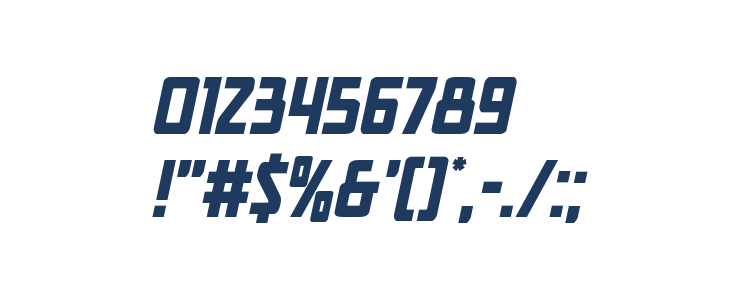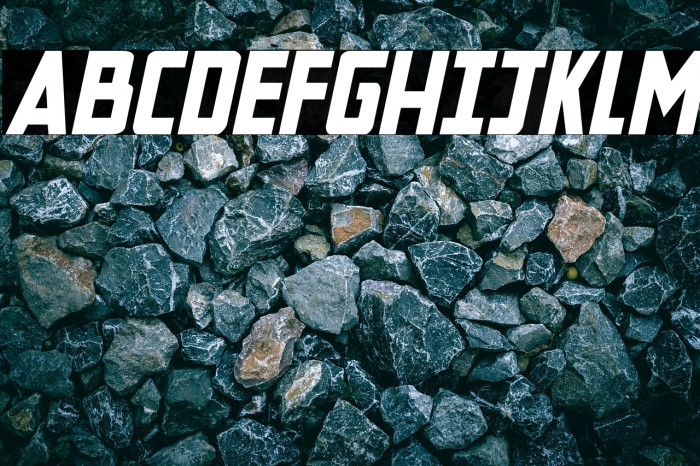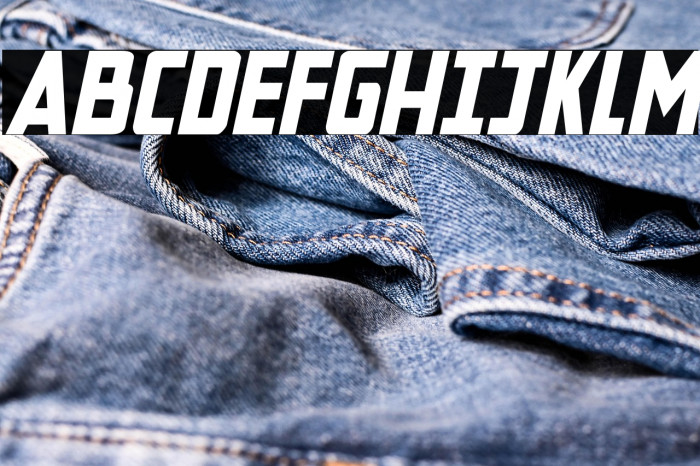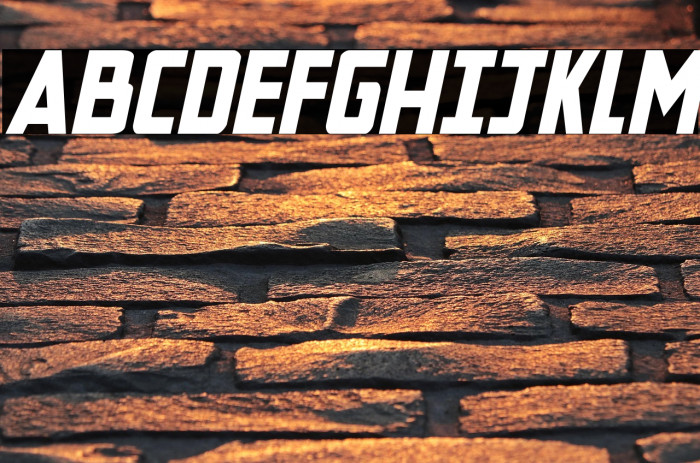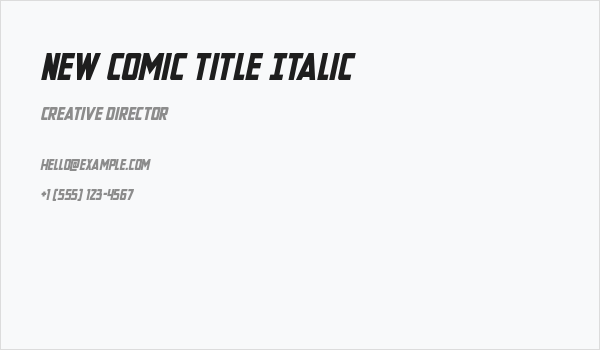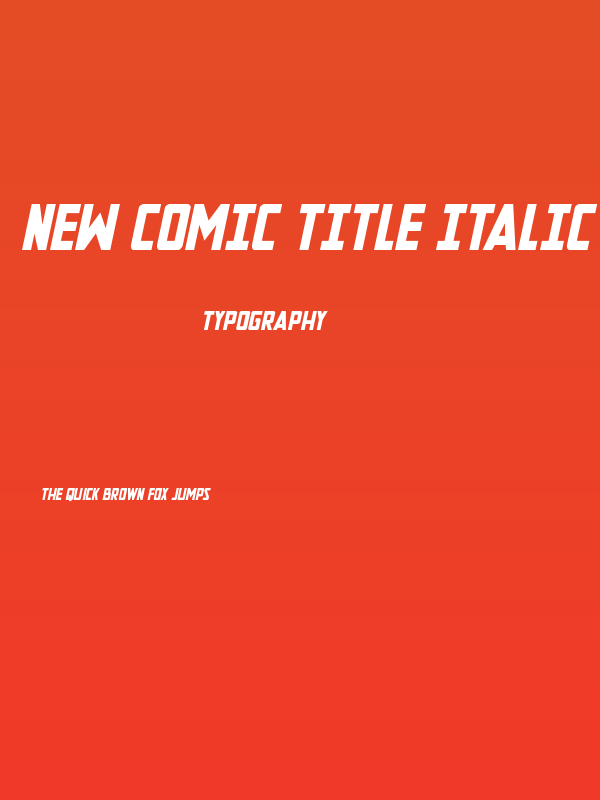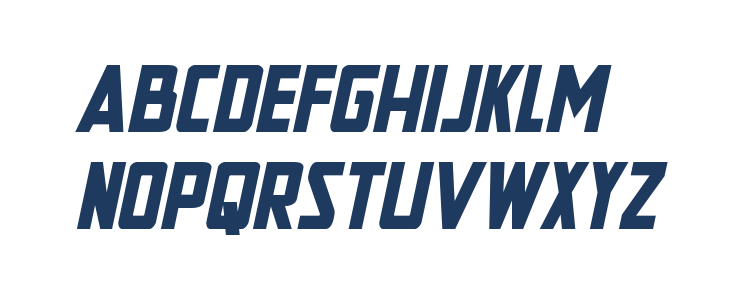
New Comic Title Italic Font
New Comic Title Italic Description
This font features a bold and dynamic style with a strong italic slant, giving it a sense of motion and energy. The characters are designed with a modern, angular appearance, making them suitable for attention-grabbing headlines and titles. The uppercase and lowercase letters maintain a consistent style, with sharp edges and a slightly condensed form. Numbers and special characters are also included, matching the bold and assertive look of the alphabet. This font is ideal for projects that require a contemporary and impactful visual presence.
| Proposed Projects | Ideal for comic book titles, posters, sports branding, and dynamic advertising campaigns. |